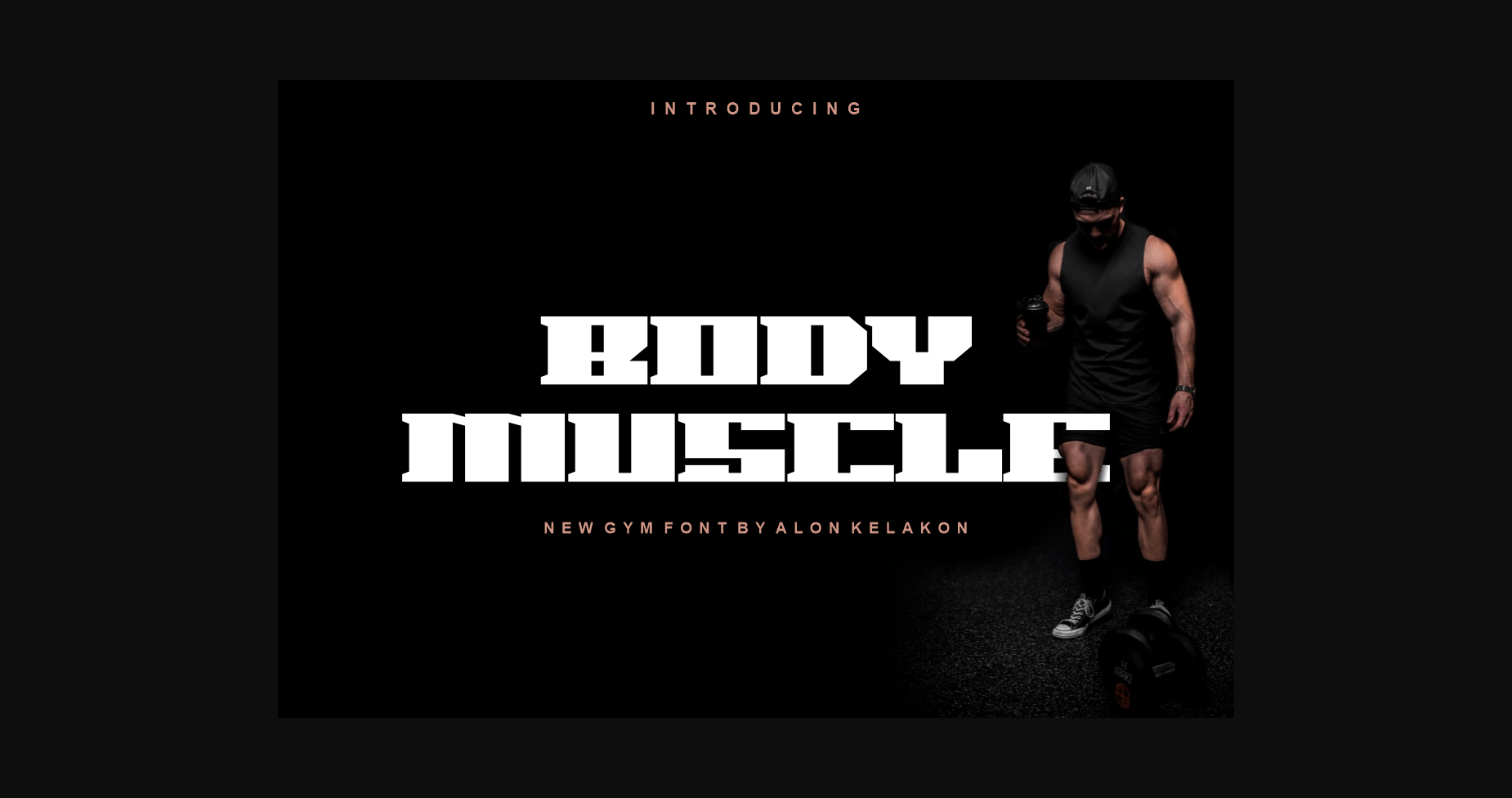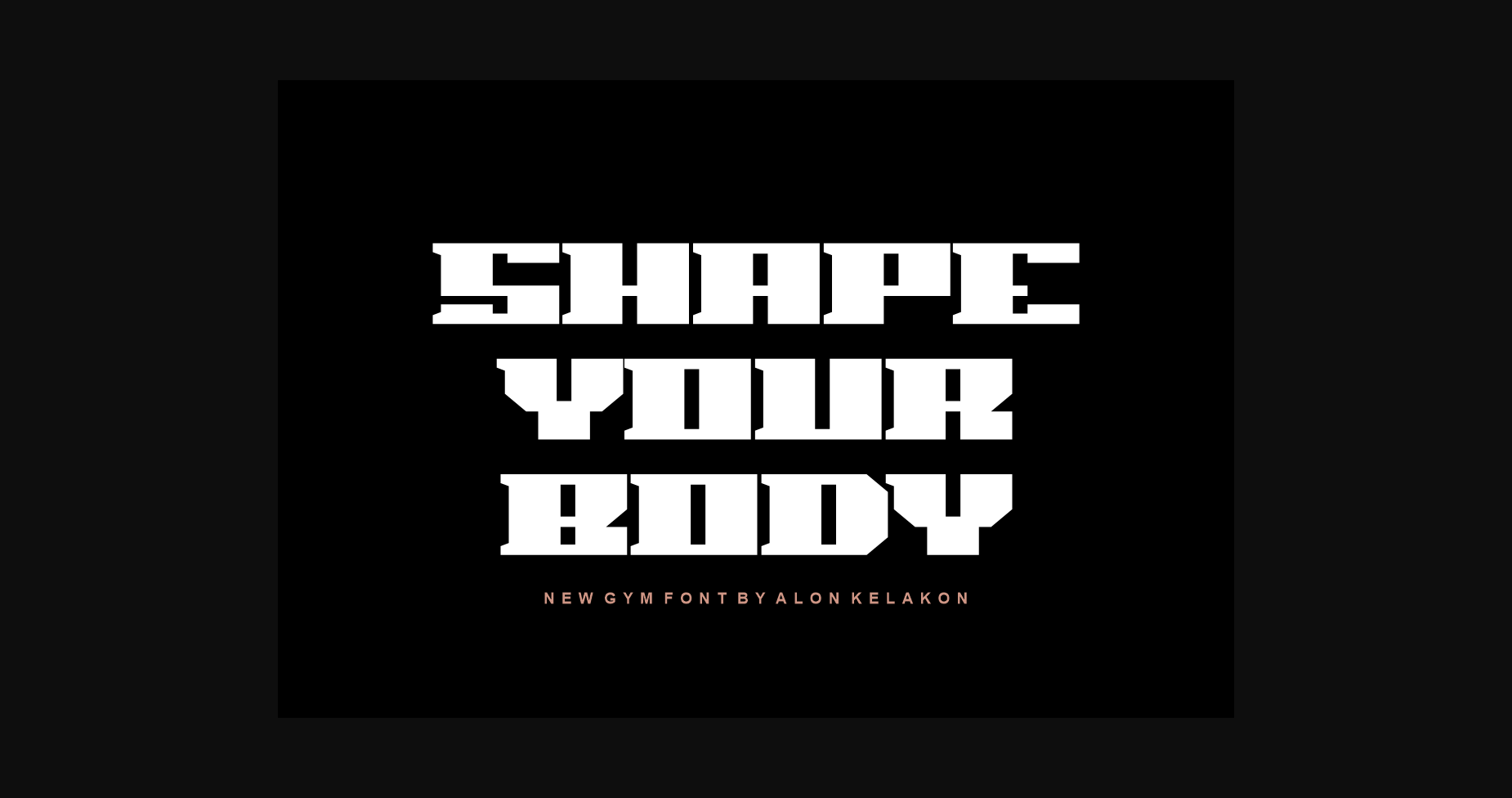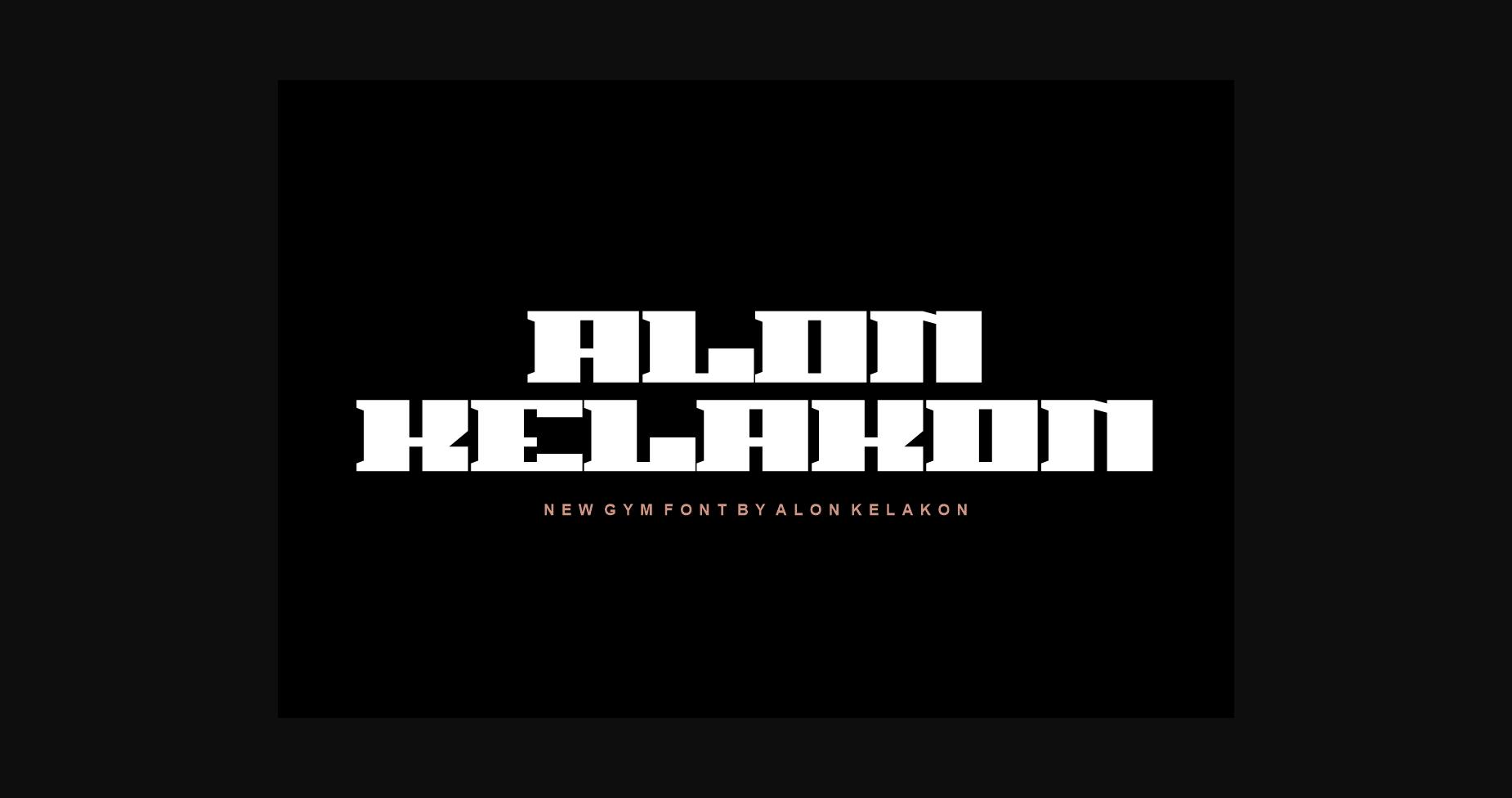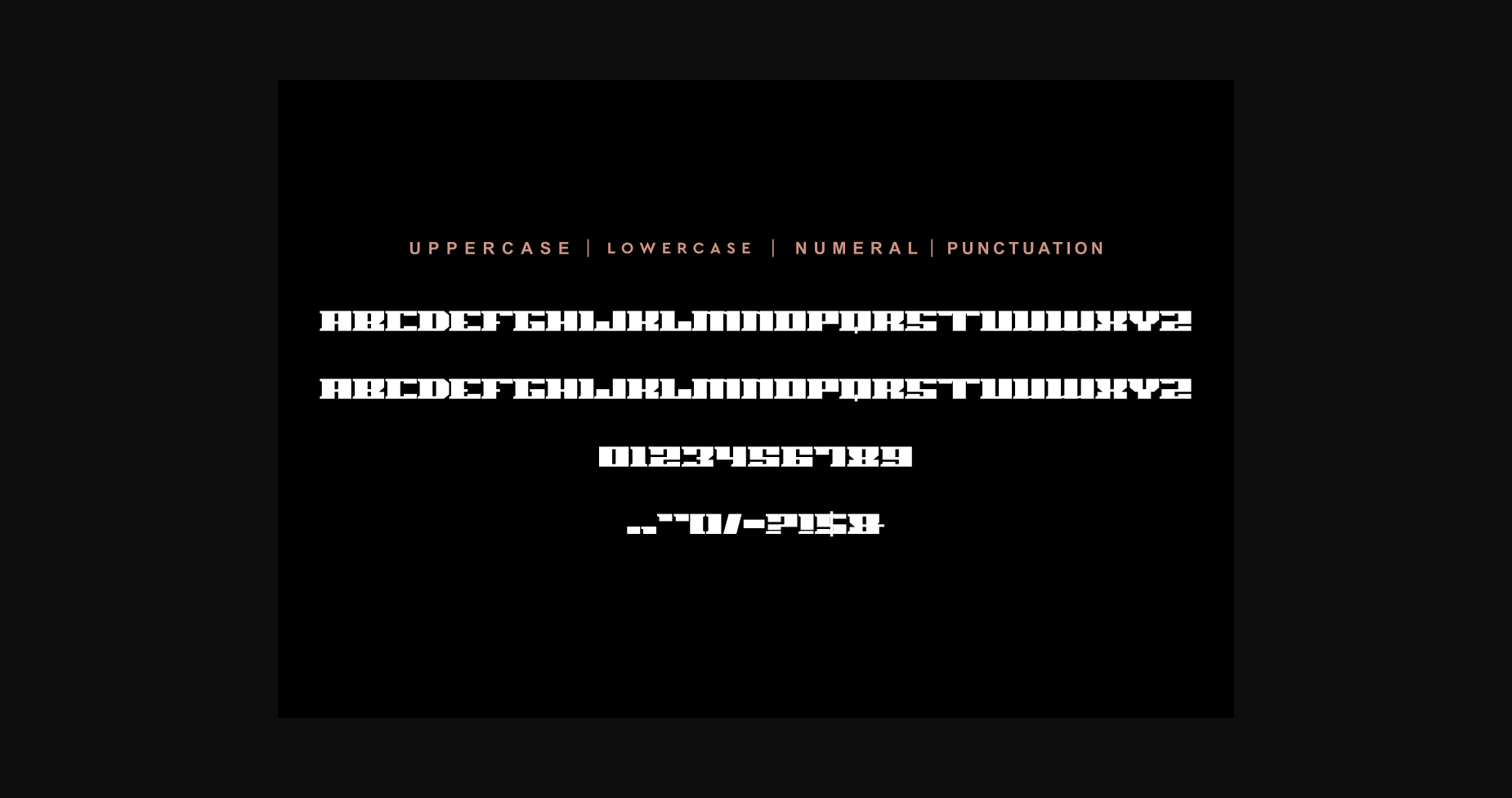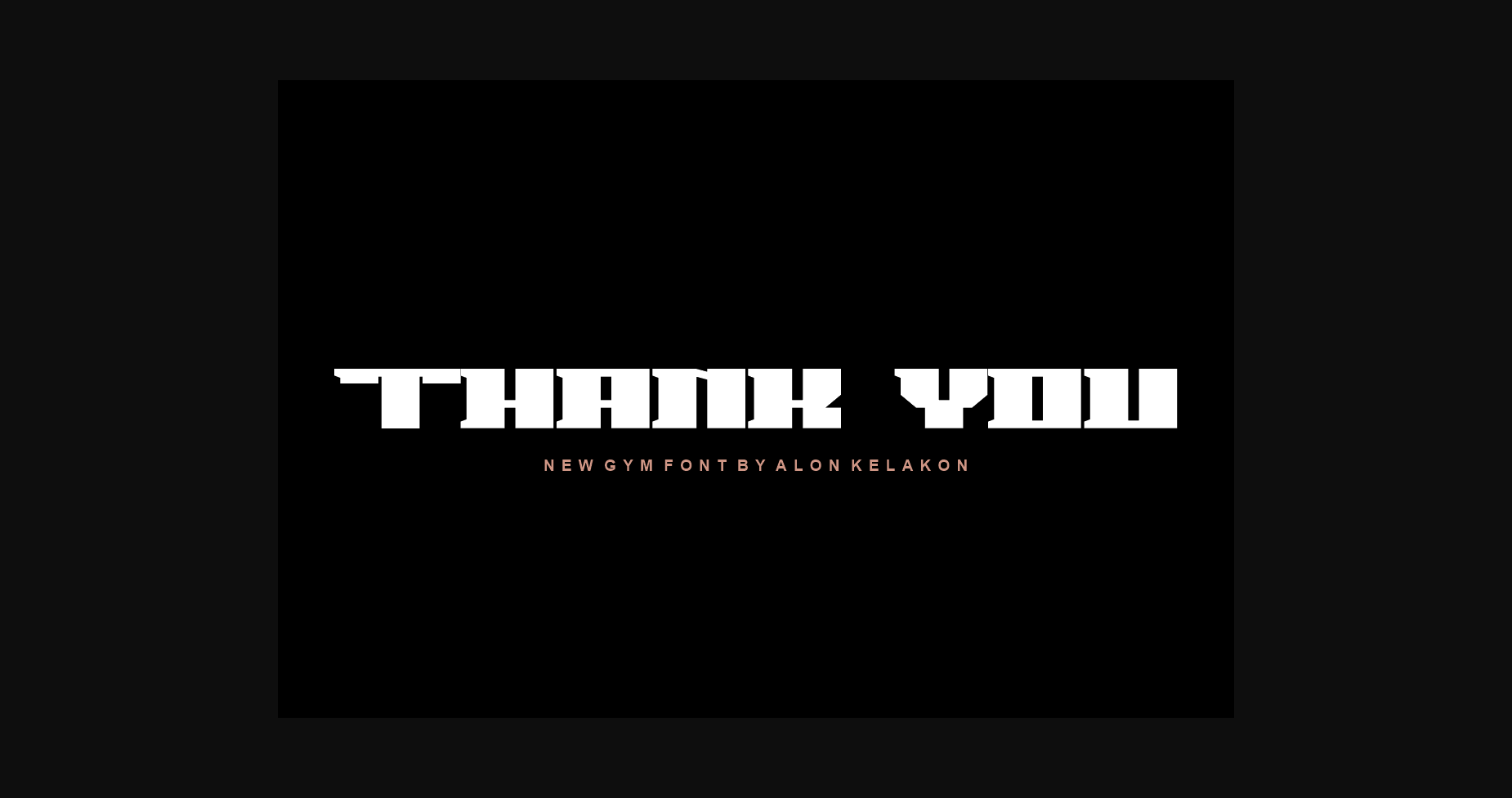
About Body Muscle Font
Body Muscle Font is a robust font designed to draw attention and highlight any project that requires a bold feel. It looks powerful and is created to add a vibrant touch to your sport-inspired designs. Suitable for sports design, team, jersey, league, movie, documenter, film, logo, poster, game, book cover, headlines, title, and many more projects.